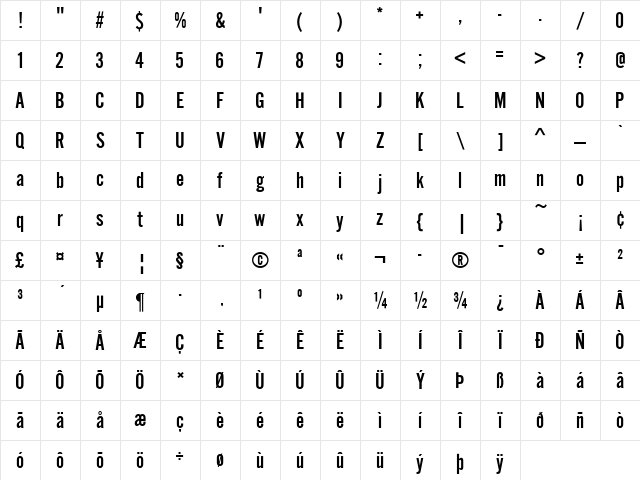
Alternate Gothic No2 D Regular
Foundry: by URW
Design Context for Alternate Gothic No2 D
Alternate Gothic No2 D takes a clean, functional approach - its unadorned letterforms prioritise legibility and work reliably across screen and print environments.
Font Pairing: Works well alongside a characterful serif or display font that can carry the expressive load while Alternate Gothic No2 D handles the functional copy.
Pro Tip: Use Alternate Gothic No2 D for UI labels, navigation, and short-form body copy where clean legibility is the priority.